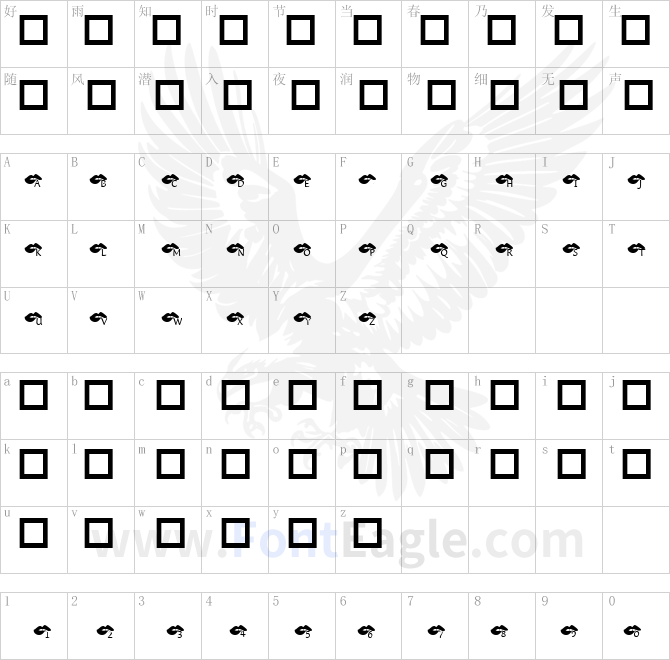
- Font name:KR Bite Your Lip!
- Font Subfamily ID:Macromedia Fontographer 4.1 KR Bite Your Lip!
- Font Full Name:KR Bite Your Lip!
- Postscript:KRBiteYourLip